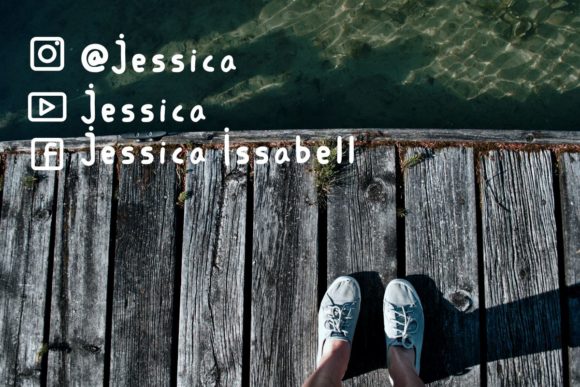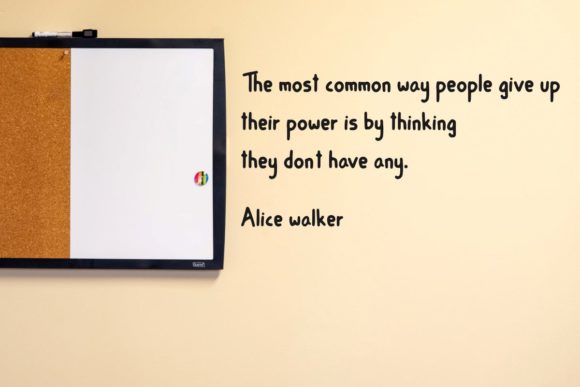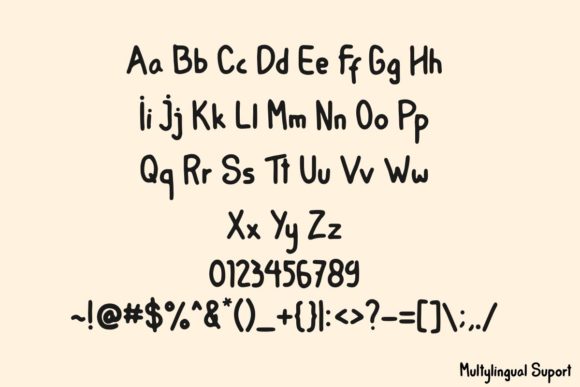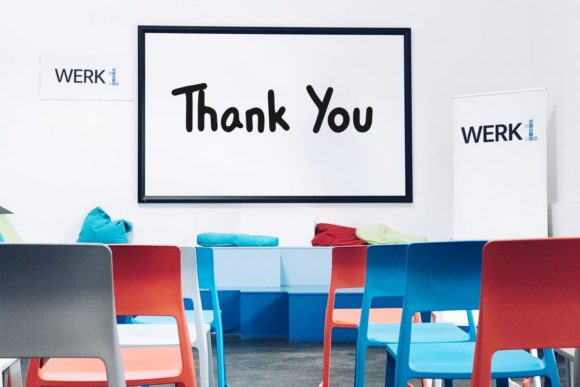
Discover the Charm of Black&Spidol Font: A Sweet and Friendly Handwritten Delight
Are you on the hunt for a font that can add a touch of warmth and personality to your designs? Look no further than the Black&Spidol Font, a sweet and friendly handwritten font that’s sure to capture your heart. With its natural and unique style, this font is incredibly versatile and can be used in a wide range of designs, from crafting and DIY projects to digital graphics and marketing materials.
The Unique Characteristics of Black&Spidol Font
So, what sets Black&Spidol Font apart from other fonts out there? For starters, its handwritten style gives it a personal and approachable feel that’s hard to replicate with more formal fonts. The natural flow and imperfections of the handwriting make it feel authentic and relatable, perfect for designs that need a human touch.
Another key characteristic of Black&Spidol Font is its uniqueness. Unlike more traditional fonts that can feel overused and generic, this font has a distinct personality that will help your designs stand out from the crowd. Whether you’re creating a logo, a poster, or a social media graphic, Black&Spidol Font is sure to make your design pop.
The Benefits of Using Black&Spidol Font
So, why should you choose Black&Spidol Font for your next design project? For one, its versatility makes it incredibly easy to use in a wide range of designs. Whether you’re working on a digital project or a physical craft, this font will adapt seamlessly to your needs.
Another benefit of Black&Spidol Font is its ability to evoke emotions and create connections with your audience. The friendly and approachable style of the font makes it perfect for designs that need to feel warm and inviting, such as branding materials, packaging, and marketing collateral.
How to Use Black&Spidol Font in Your Designs
- Pair it with bold colors: Black&Spidol Font looks amazing when paired with bright, bold colors. Try using it with a contrasting color to create a visually striking design.
- Mix it with textures: The natural, handmade feel of Black&Spidol Font makes it perfect for pairing with textures and patterns. Try adding a subtle texture to your design to give it a more organic feel.
- Experiment with sizes: Black&Spidol Font looks great in a variety of sizes, from large headings to smaller body text. Experiment with different sizes to find the perfect fit for your design.
Black&Spidol Font in the World of Crafting and DIY
Crafters and DIY enthusiasts will love the Black&Spidol Font for its ability to add a personal touch to their projects. Whether you’re creating handmade cards, scrapbooking, or working on a quilting project, this font is sure to become a favorite.
One of the best things about Black&Spidol Font is its ability to be used in a wide range of crafting projects. Here are a few ideas to get you started:
- Handmade cards: Add a personal touch to your handmade cards with Black&Spidol Font. Perfect for birthdays, holidays, and special occasions.
- Scrapbooking: Use Black&Spidol Font to add journaling and titles to your scrapbooking pages. The natural, handmade feel of the font is perfect for capturing memories.
- Quilting: Add a personal touch to your quilting projects with Black&Spidol Font. Use it to create labels, tags, and other decorative elements.
In conclusion, Black&Spidol Font is a sweet and friendly handwritten font that’s perfect for designers and crafters alike. With its natural and unique style, this font is incredibly versatile and can be used in a wide range of designs. Whether you’re working on a digital project or a physical craft, Black&Spidol Font is sure to add a touch of warmth and personality to your work. So why not give it a try and see the difference it can make?